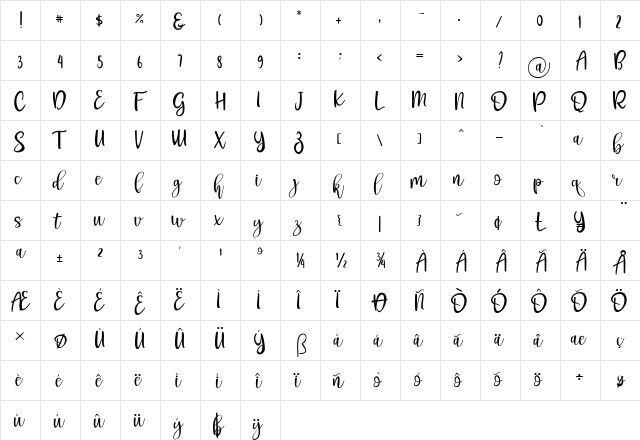
Pichellya Script Regular
Design Context for Pichellya Script Typeface
Pichellya Script flows with the natural rhythm of handwritten lettering, making it ideal for designs that call for warmth and personal expression.
Font Pairing: Combine Pichellya Script with a simple geometric sans for maximum contrast — the tension between flowing curves and clean structure is a classic typographic pairing.
Pro Tip: Use Pichellya Script for short runs of text — names, titles, or taglines. Extended body copy in script faces tires the eye quickly.